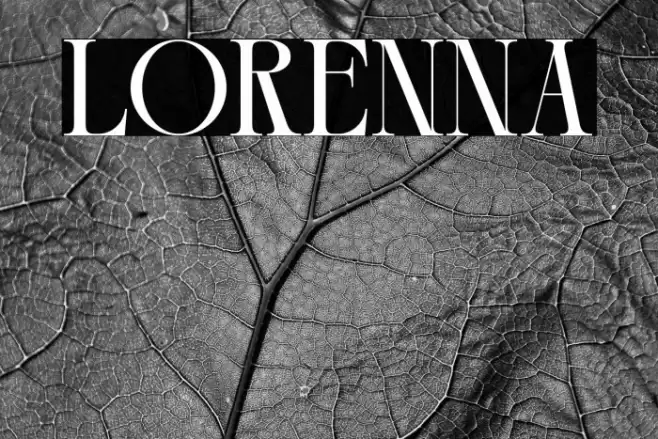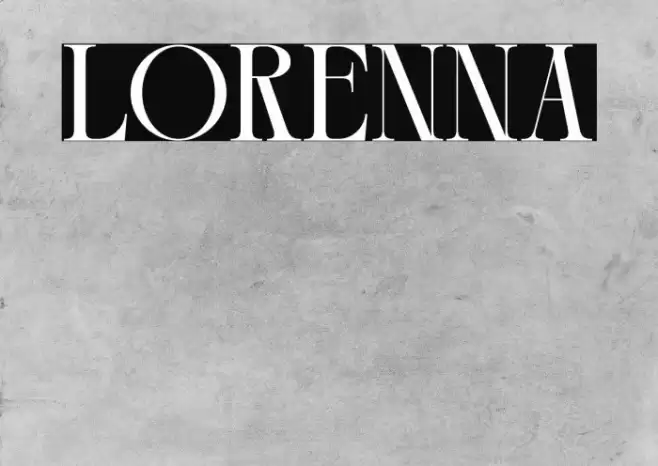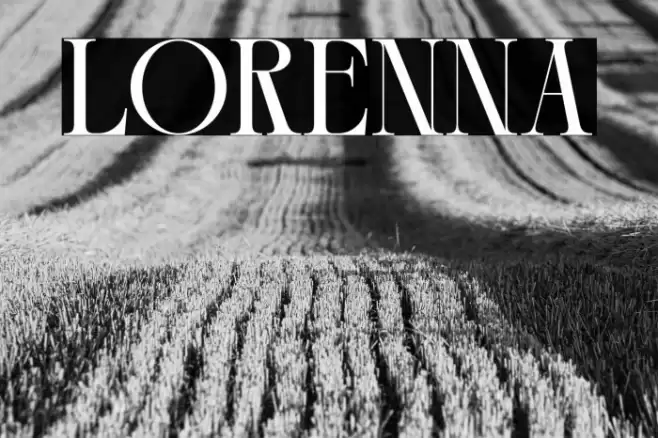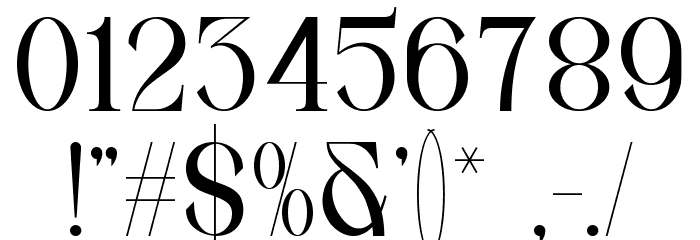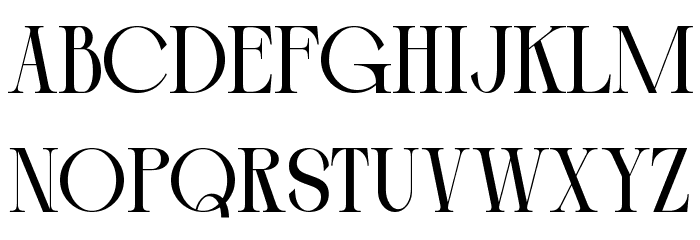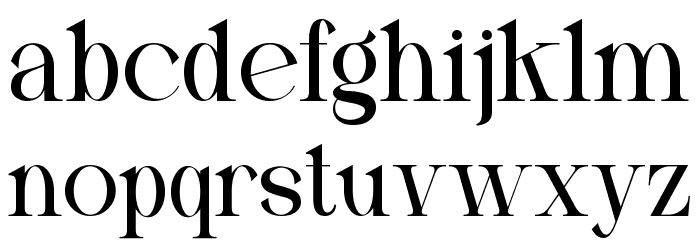
LORENNA Font
LORENNA Description
This font features a classic serif style with elegant, thin lines and high contrast between thick and thin strokes. The uppercase letters are tall and stately, while the lowercase letters maintain a graceful flow. The numerals are distinct and clear, complementing the overall sophisticated appearance. Special characters are well-integrated, maintaining the font's refined aesthetic. This typeface exudes a timeless elegance, making it suitable for formal and luxurious designs.
A classic serif font with high contrast and elegant, thin lines from Uncategorized fonts.
- Proposed Projects: Ideal for luxury branding, wedding invitations, editorial design, and high-end product packaging.
- Contrast: High
- Overall Style: Classic
- Use Case: Headlines, Logos, Editorial design